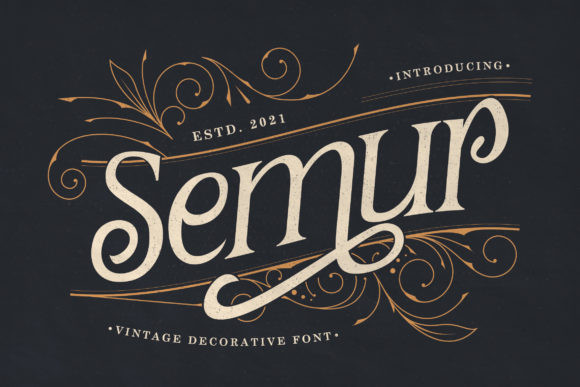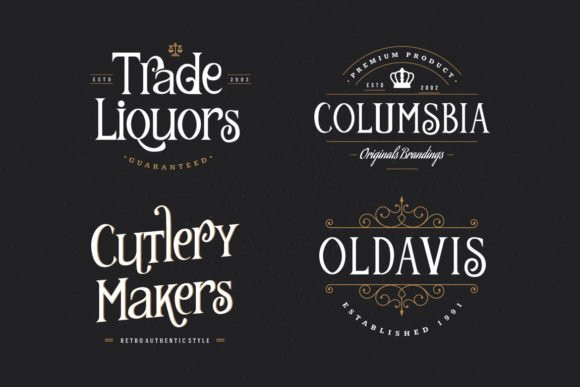
Semur Font
Semur FontSemur is a vintage styled, elegant and assertive serif font. This font is PUA encoded which means you can access all of the glyphs and swashes with ease!
It will elevate a wide range of crafting ideas, from cards, to branding, labels and much more.